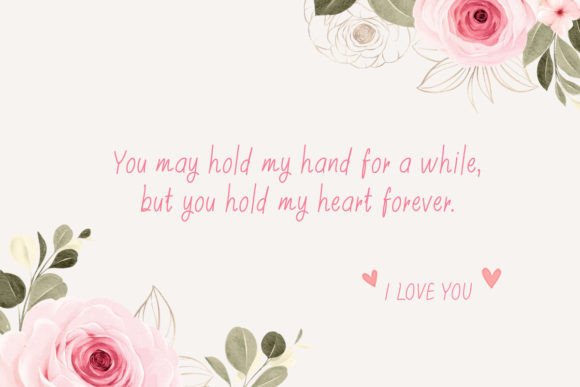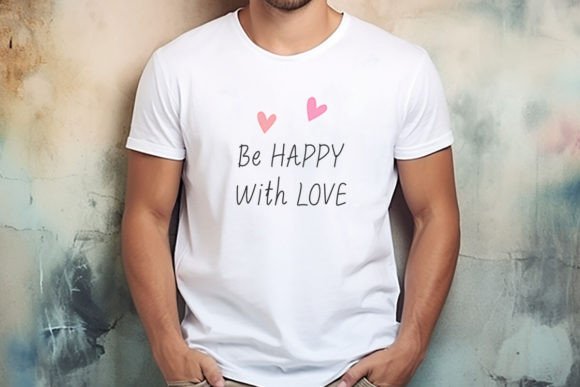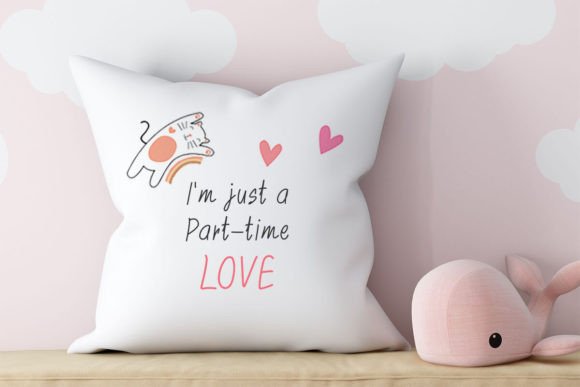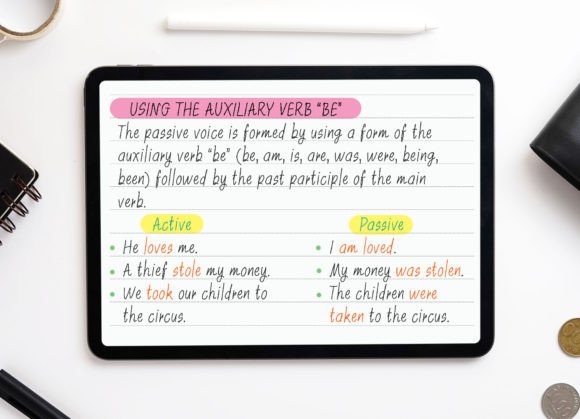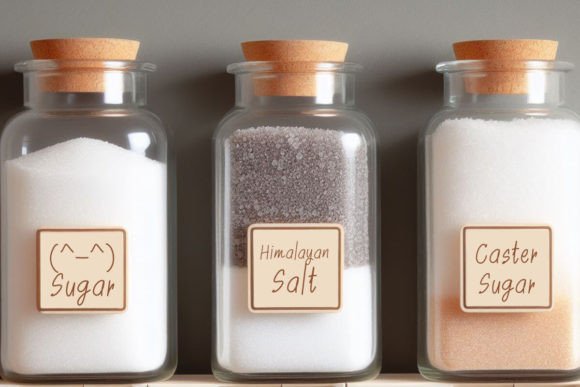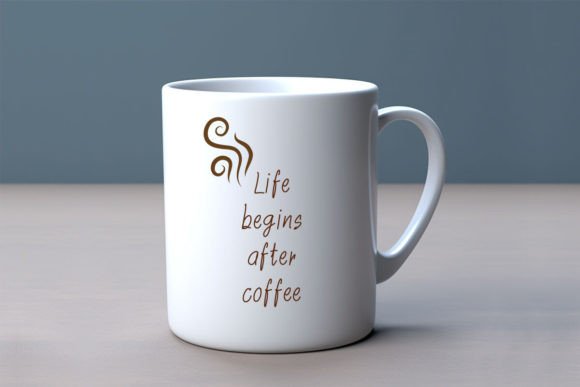
Introduction to Longer Fu Font
Have you ever been working on a creative project, pouring your heart and soul into it, and then – BAM! – the perfect font just clicks into place? That’s exactly what happened when I discovered the Longer Fu Font. Its adorable, handwritten style is like a warm hug for your design, and I just can’t get enough of it!
As a designer, I know how crucial it is to have access to high-quality design resources that can elevate our creative projects. The Longer Fu Font is a fantastic addition to any design library, offering a free download that’s perfect for everything from wedding invitations to social media posts. With its transparent background and soft, friendly vibe, this font is a game-changer for designers looking to add a personal touch to their work.
- High-quality design for a creative project, ideal for designers and artists looking for a unique font.
- Unique, hand-drawn style with a bold and playful feel, making it perfect for adding personality to a design project.
Honest Review: Longer Fu Font
As a designer, I’m always on the lookout for high-quality design resources that can elevate my creative projects. Recently, I stumbled upon the Longer Fu Font, a free download that caught my attention.
- What works well: ✨ The Longer Fu Font has a unique, elegant design that’s perfect for Asian-inspired projects. The transparent background makes it easy to combine with other design elements.
- What works well: ✨ The font is highly customizable, allowing me to adjust the size, color, and style to suit my needs.
- ⚠️ Limited character set: The Longer Fu Font only includes a limited number of characters, which may not be suitable for projects that require a wide range of languages or characters.
- ⚠️ Not ideal for body text: While the font is great for headings and titles, it’s not the most readable font for body text due to its unique design.
Overall, I’m impressed with the Longer Fu Font’s design and versatility. While it may have some limitations, it’s a great addition to any designer’s toolkit, especially for creative projects that require a unique touch.
Longer Fu Font is a versatile design resource that can be used in a variety of creative projects, including logos, branding materials, and marketing collateral. Its free download and high-quality design make it an ideal choice for designers and non-designers alike.
Comparison to Longer Fu Font: Pacifico Font has a more refined and elegant feel, whereas Longer Fu Font is more playful and energetic.